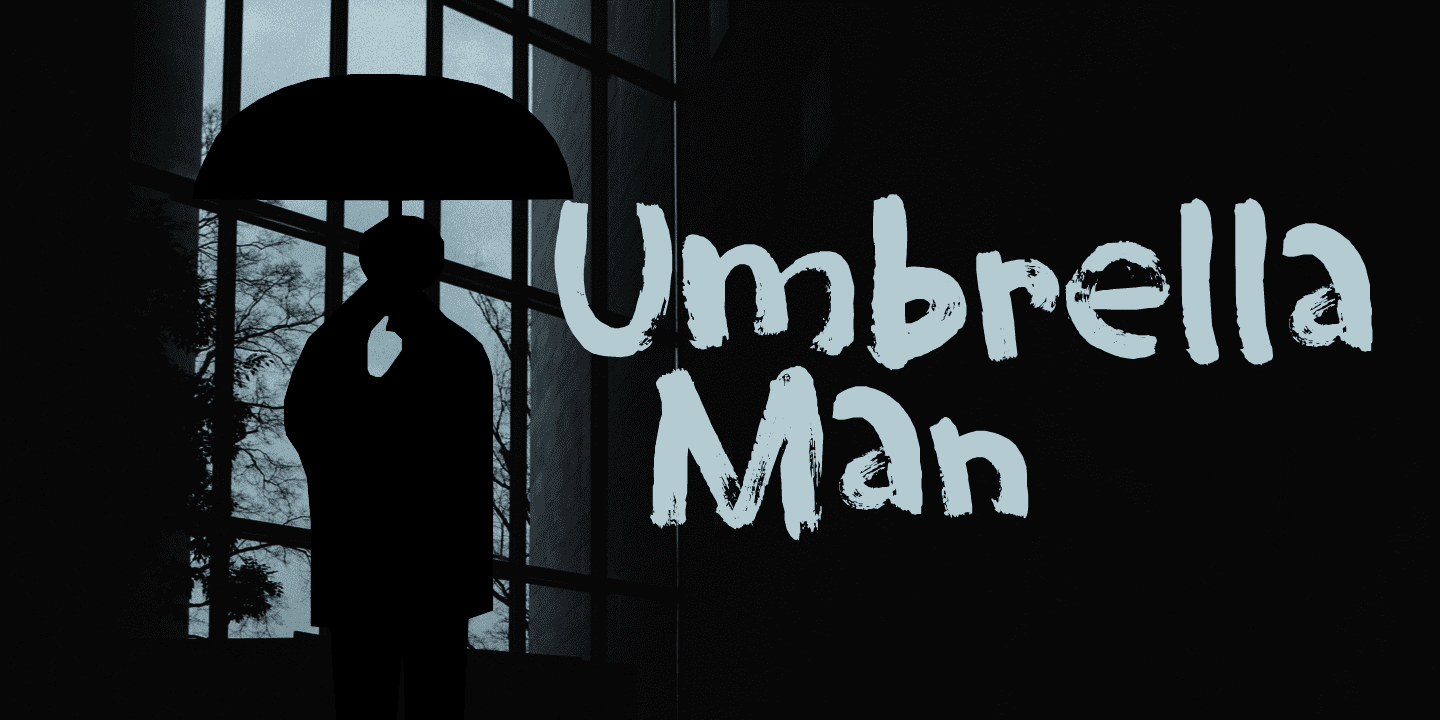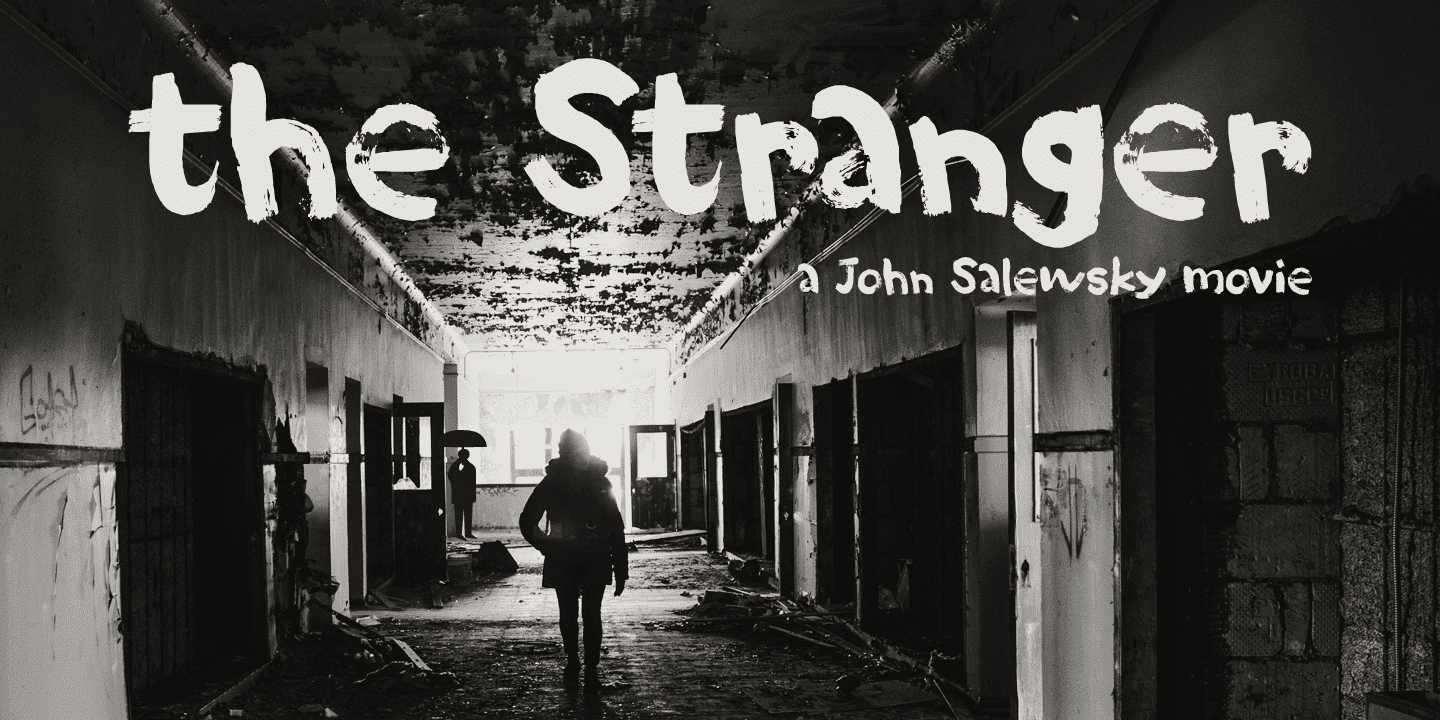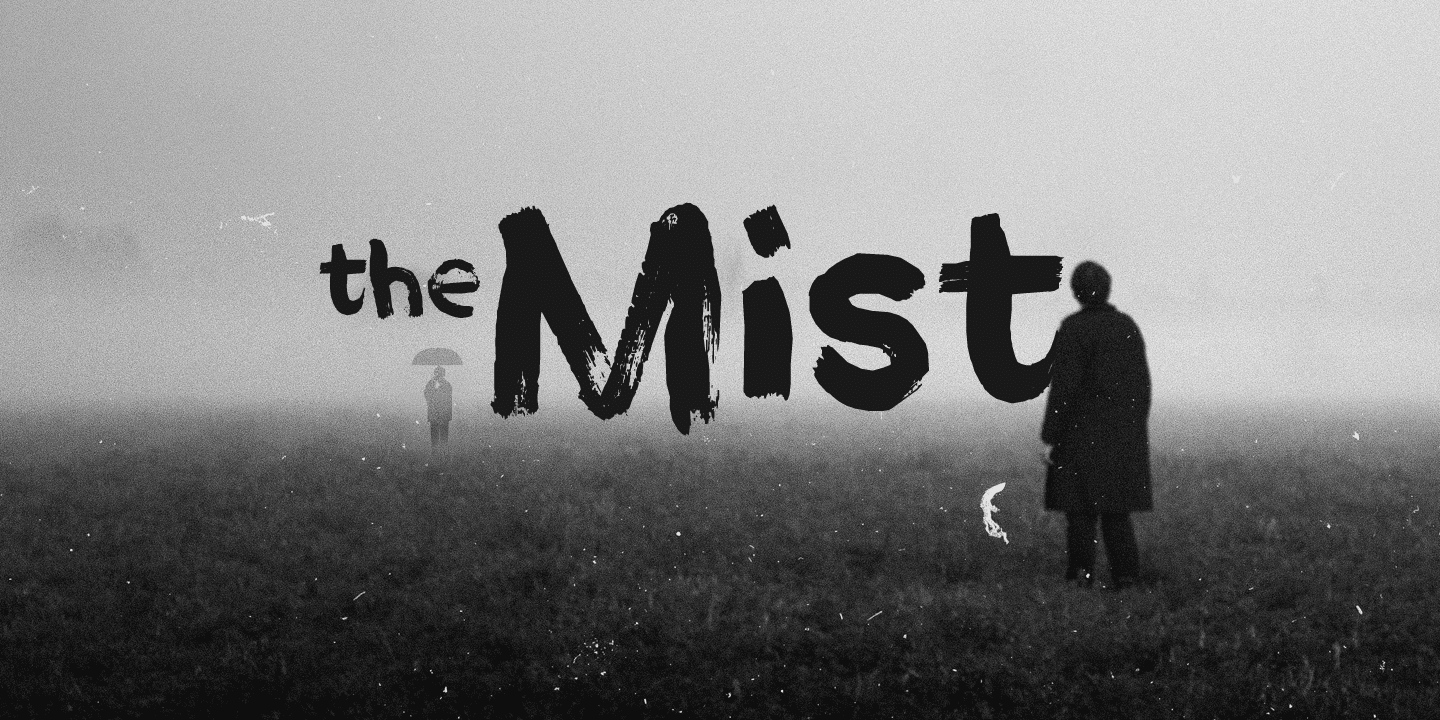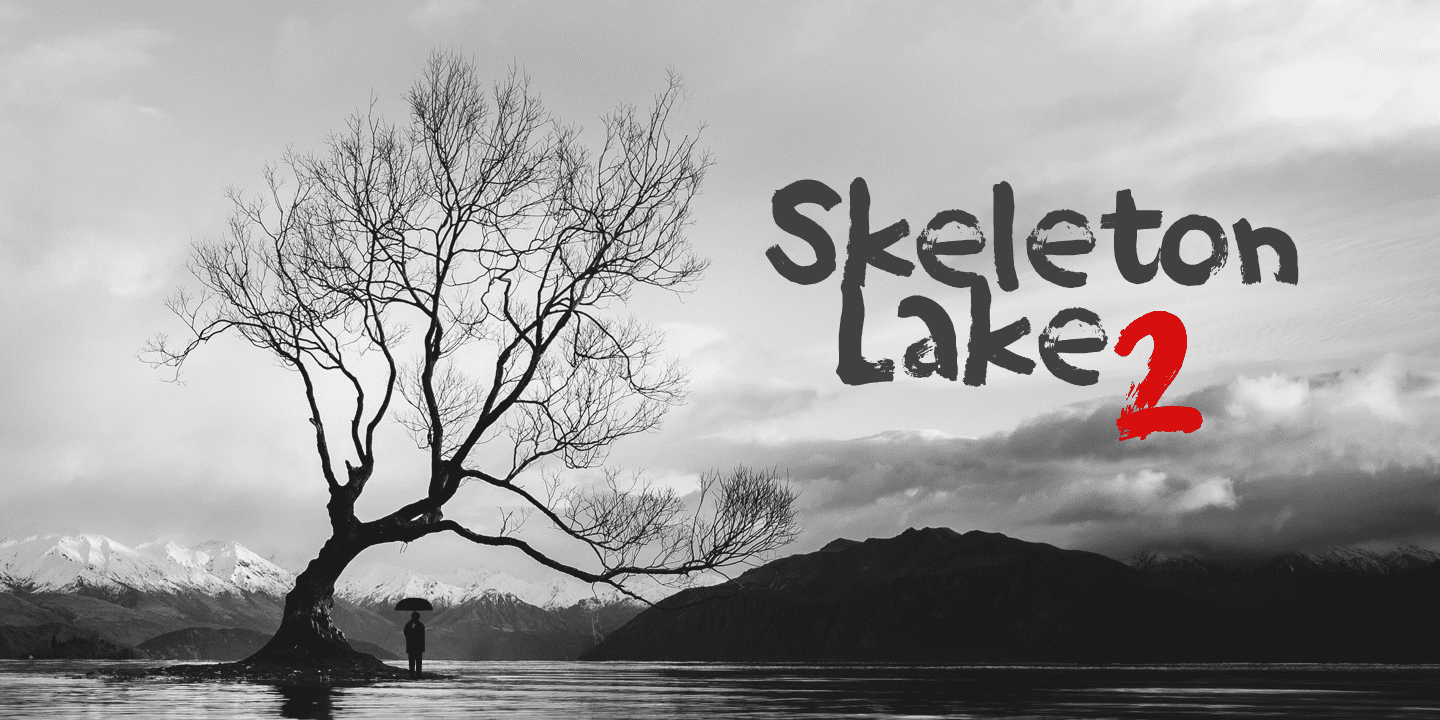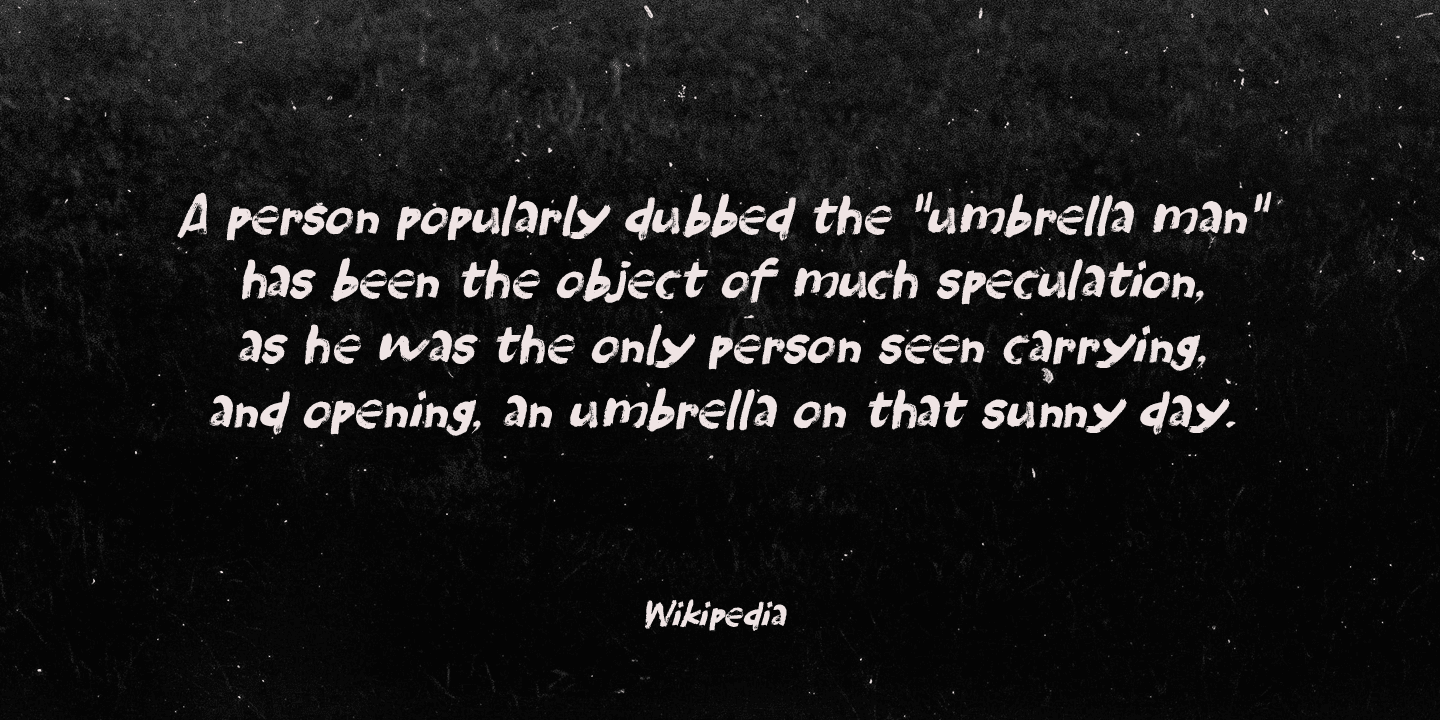
Some time ago, I read an article about the Kennedy assassination. In that article, a person dubbed ‘the umbrella man’ played a rather bizarre role: apparently an innocent bystander with an opened umbrella was thought to be in cahoots with Kennedy’s killer. I immediately thought that the name ‘Umbrella Man’ was a good title for a horror movie, so when I created this rough brush font, I named it Umbrella Man.